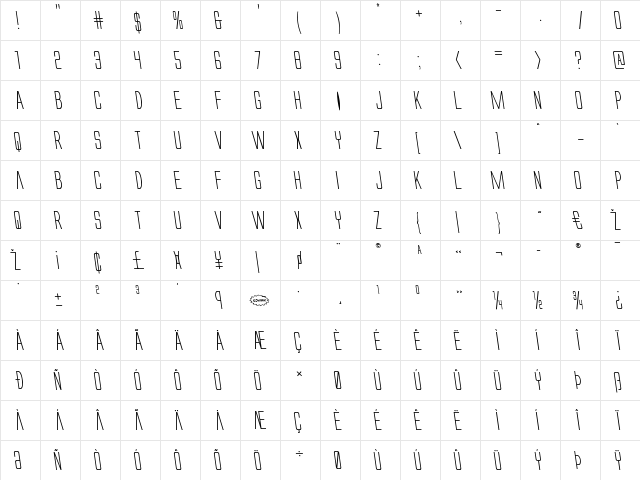
Alien League II Leftalic Italic
Design Context for Alien League II Leftalic Typeface
Alien League II Leftalic offers clean, dependable letterforms without strong stylistic allegiance, making it a practical choice for designers who need flexibility. Its italic angle brings a sense of urgency and motion to the letterforms.
Pro Tip: Try Alien League II Leftalic for annotation and caption copy alongside an upright companion — the contrast in angle creates a dynamic but ordered typographic system.